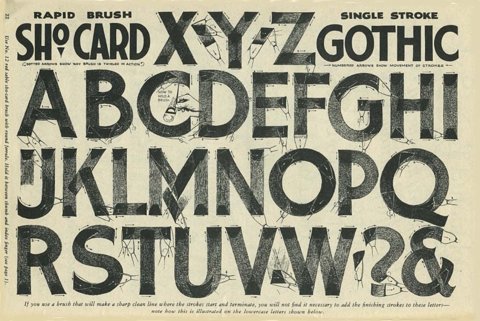
This is my first attempt at an Egyptian alphabet (or any alphabet for that matter). I am still trying to get the hang of the brush and I know more practice will help, I just wanted to post this to gauge my progress over time and hopefully get some pointers from some professionals.
Here is a little look at my setup.
Well feel free to give me any advice. I've been looking through the forum and have found some useful information about brushes and what not but not so much about starting out. I have the new "Sign Painters" book which has some informations about practicing strokes and what not. Are there any other online resources that would be helpful for a beginner such as myself?
If I may be so bold. You are about to make the same mistake that I made about 35 years ago.
I would strongly suggest you look at the exercise that is on The Letterheads website: It is a chart of the basic strokes for 1 stroke lettering. I have wrestled with letter control my entire career because I impatiently placed the cart before the horse, in my eagerness to move too fast. I have gone back and practiced these strokes several hundred times each over the last week. I am half way done now (Control is coming, almost feels automatic without the struggle). Then I will begin drawing the Egyptian letters in propotion and paint the properly drafted characters 20 or 30 times to memorized the letters relationship with one another.
I think Mr. Jackson may have been responsible for putting these old charts up and teaching a veteran the importance of paying your dues. There are no good shortcuts.
Please take this to heart....I feel excited about the brush again!
I have a few suggestions:
I noticed the O and the Q. The O looks ok in shape, but the Q
is not as good. They are both the same in shape: A Circle.
I would suggest Drawing Lines, be it straight or circle, then
pratice following the line in 1 Stroke.
To many times, someone will paint the stroke in pieces, meaning
they will pull a line, stop, and paint again.
Also, use tape for the Top & Bottom. This helps in defining
the Letter. Although this is considered cheating, it will
help in your construction. When you are finished, pull the tape,
then finish the top & bottom Round Letters.
Last suggestion.
Pratice the 1 Stroke. It does not matter what you paint, but the
more you get use to pulling a stroke, the better you become
in any Letter Style.
Thanks for the input, but I am confused about something. Do you mean practicing pulling the O and Q in one stroke as opposed to half the circle then the other half?
Either way for the time being I will stick to practicing the basic strokes for one stroke lettering (as mentioned above) and drawing letterforms in pencil.
1 stroke really isn't just one stroke, especially with a blocked letter like Egyptian.
You are correct an O is two strokes a left and a right. I would not say that a single stroke O is impossible to do but it would be awkward because of the extreme twirl you would have to master. My thumb isn't wide enough.
Figured I would keep all my posts in one thread to minimize clutter. Here is a shot of a sign I'm making for my girlfriend for valentines day. First time working with wood (staining, finishing) and first time using a pounce pattern. I drew the pattern using Dick Bird's Roman alphabet as reference. I intend on having a 2 tone shade to the bottom right, light and dark pink for Valentine's day. Thank you for putting up with my beginner posts.
Looks good, but a bit crowded on the board.
Shocard writers were always taught to give wide margins; signpainters tend to use up the space more. Some times just changing the surrounding 'white space' can make the same layout go from 'elegant' to 'industrial'.
The nice thing about hand lettering is that one can modify the letters to fit the circumstances.
Nicely drawn letters. Keep sketching with a pencil, it will provide a balance to the more direct work of the brush or pen. (and i suppose one could always draw other things than letters, though I don't know why...)
Thank you for your kind words Lee,
Here is a shot of the finished product. As this is my first proper sign, I am pleased with the outcome. I hope my girlfriend is too!
Looks like your on your way... like the shading nicely done.
Your girlfriend should be thrilled you took the time to create a unique gift.
Let me put in a plug for thumbnail drawings - they can be real loose, but for learning practice I think 'sort of' accurate is useful. Start with the board size, drawn to scale on letter size paper. In fact, maybe do 2 or 3 rectangles. Now you can lightly pencil in some ideas, and erase parts, and work out the shapes with a pencil before you hit the brush. Sketching is not the same as brush lettering, but it is good training for the eye and hand, it's faster, and it smells less!